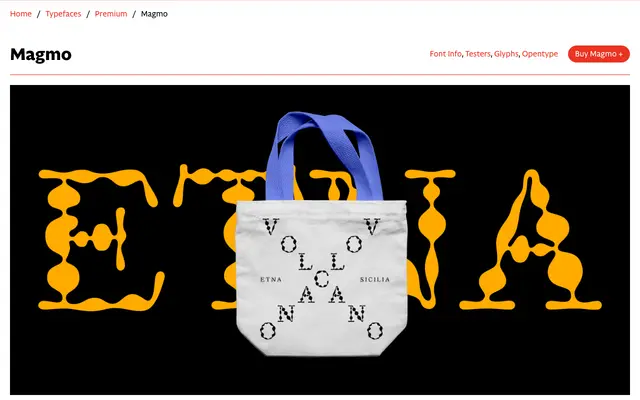
Magmo
Magmo specimen from CAST
A contemporary serif by Nacir Imache whose stroke swellings are derived from burning paper experiments, set against proportions drawn from Caslon's 1727 type specimen.
The organic globules that swell within Magmo's strokes were generated by studying the charred edges of burning paper, producing a thick/thin contrast that intensifies markedly as weight increases. Despite this unusual formal origin, the design anchors itself in William Caslon's English and Great Primer body sizes, giving the lighter weights sufficient classical regularity for text use at small sizes. Nine weights with matching slanted versions are available as both static fonts and a variable font with weight and slant axes.
Magmo draws on Caslon's proportions from the 1727 type specimen while introducing highly irregular, organic stroke swellings derived from burning paper experiments, placing it in a contemporary expressive serif tradition.